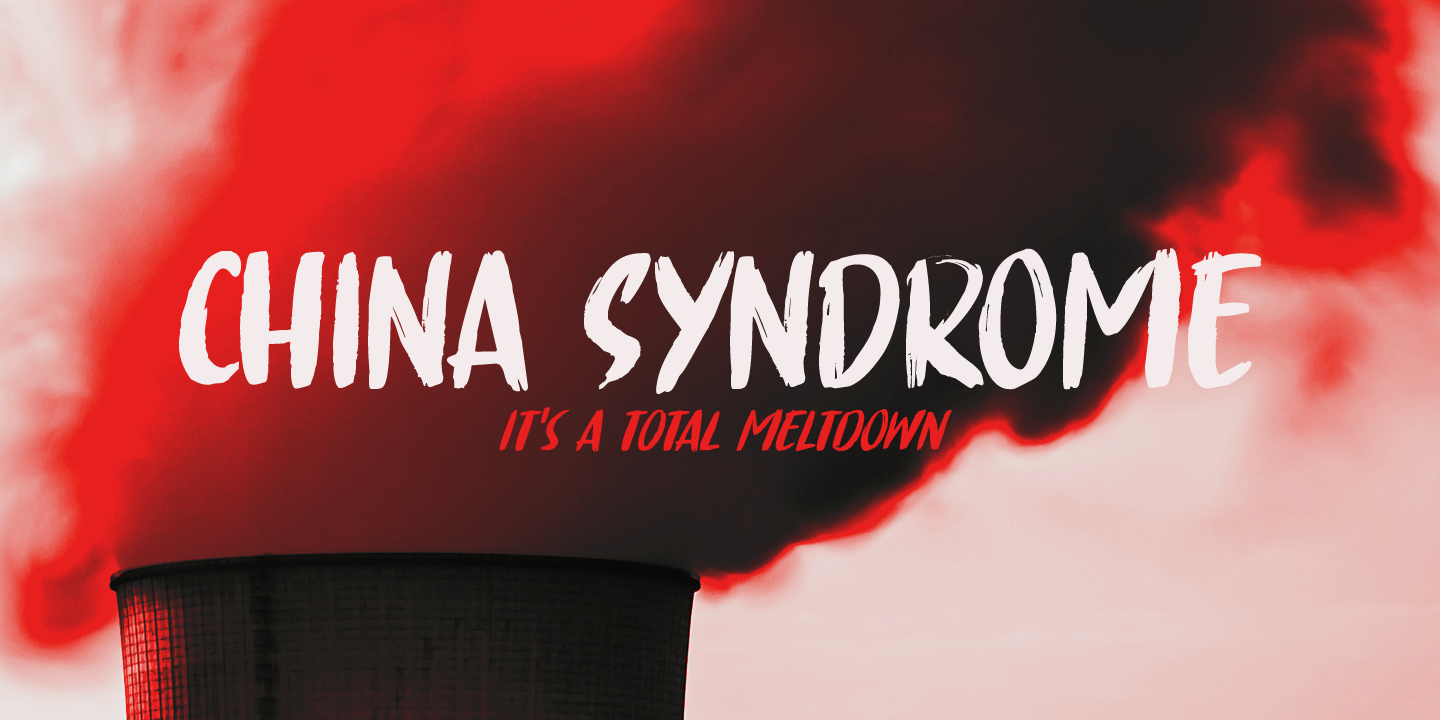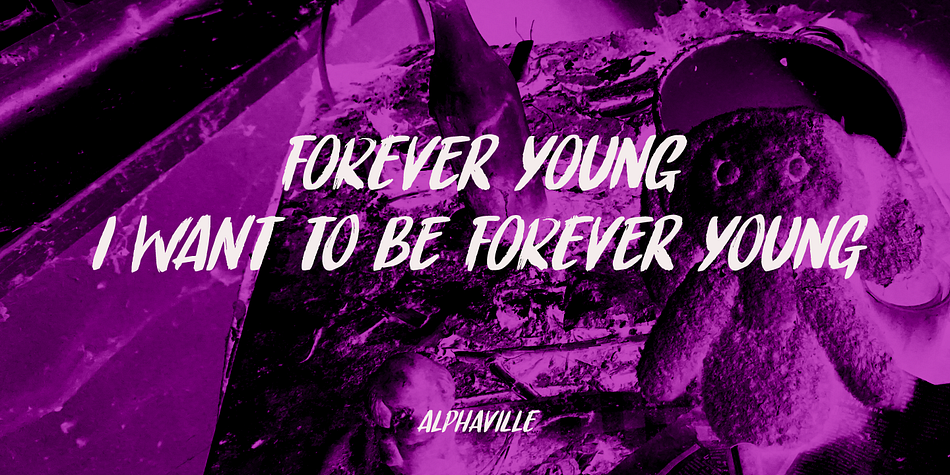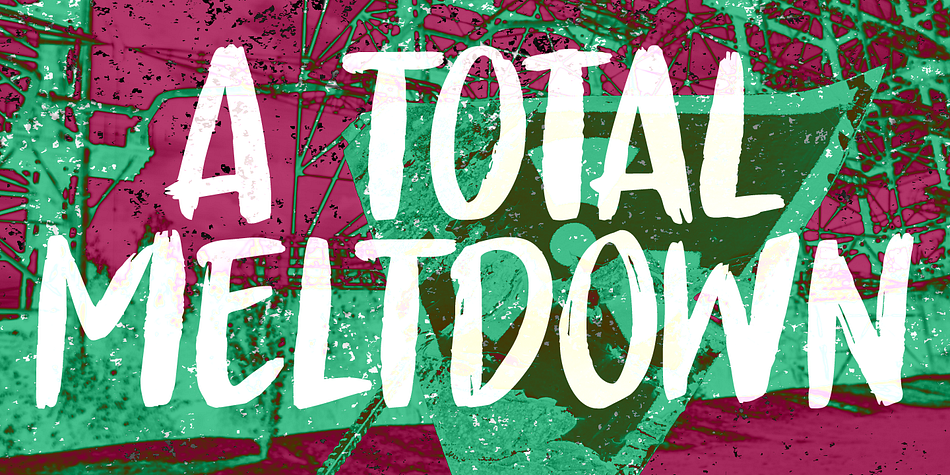
Designed by David Kerkhoff, China Syndrome is a brush display font family. This typeface has two styles and was published by Hanoded.
A really, really long time ago, I watched a movie called ‘The China Syndrome’ (starring Jane Fonda, Jack Lemon and Michael Douglas). It was one of those disaster movies that were quite popular at the time (I also recall airports, alien viruses and skyscraper fires). Anyway, when I finished this font, I suddenly (and quite inexplicably) remembered that movie, so I named this font after it.
China Syndrome is a legible brush font - ideal for your product packaging and halloween posters. Maybe use it for a metal album cover, a book about nuclear disasters or, dunno, the logo of your really strong coffee brand.